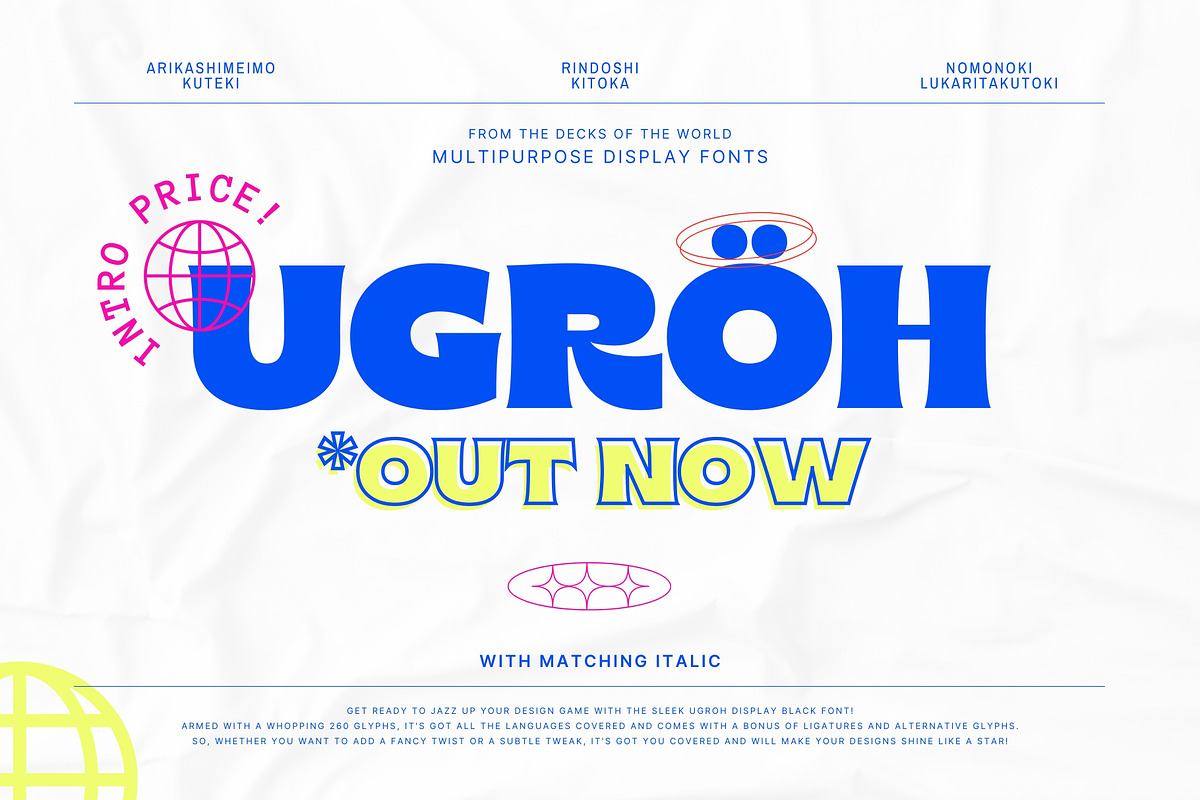
Ugroh Black - BOLD Fonts Free Download
Please note, you must purchase this font for commercial use. However, you can easily download Ugroh Black - BOLD Fonts Free Download for personal use and testing purposes. Ugroh Black - BOLD Fonts is a striking and powerful typeface designed to make a bold statement in any design. With its thick, robust letterforms and strong presence, this font is perfect for headlines, logos, posters, and branding projects that require high visibility. Ugroh Black - BOLD Fonts Free Download adds impact and strength to any creative project, making it ideal for edgy, modern designs. Whether you're working on promotional materials, advertisements, or attention-grabbing visuals, this font ensures your text stands out. Download Ugroh Black - BOLD Fonts Free Download today and explore its full potential before opting for a commercial license.